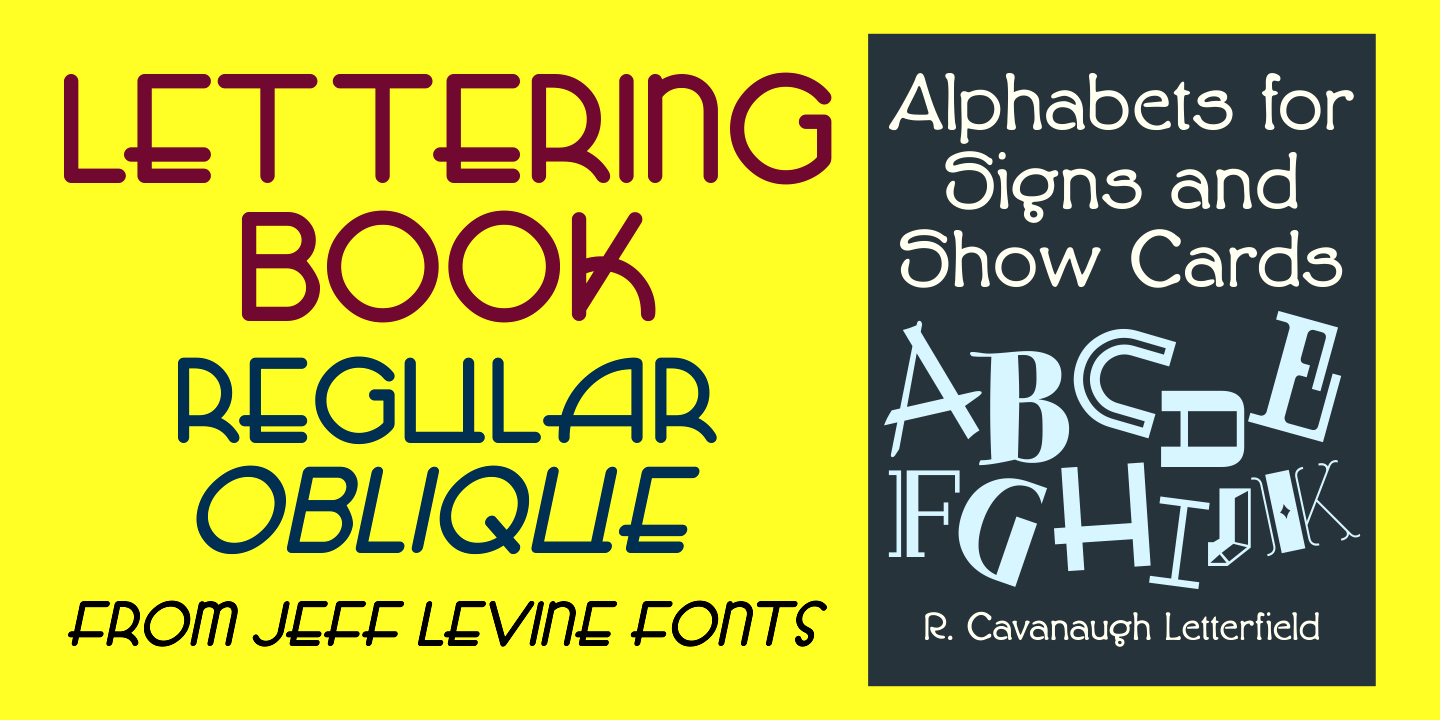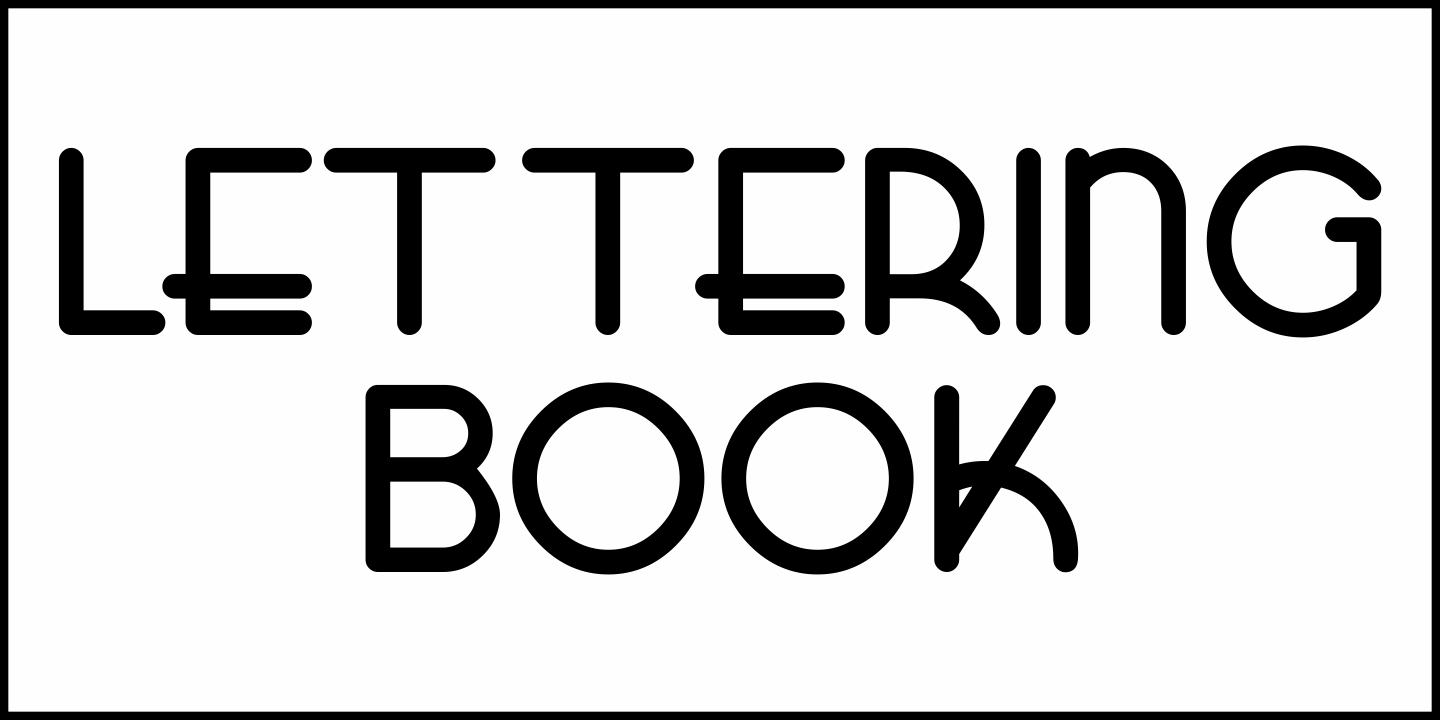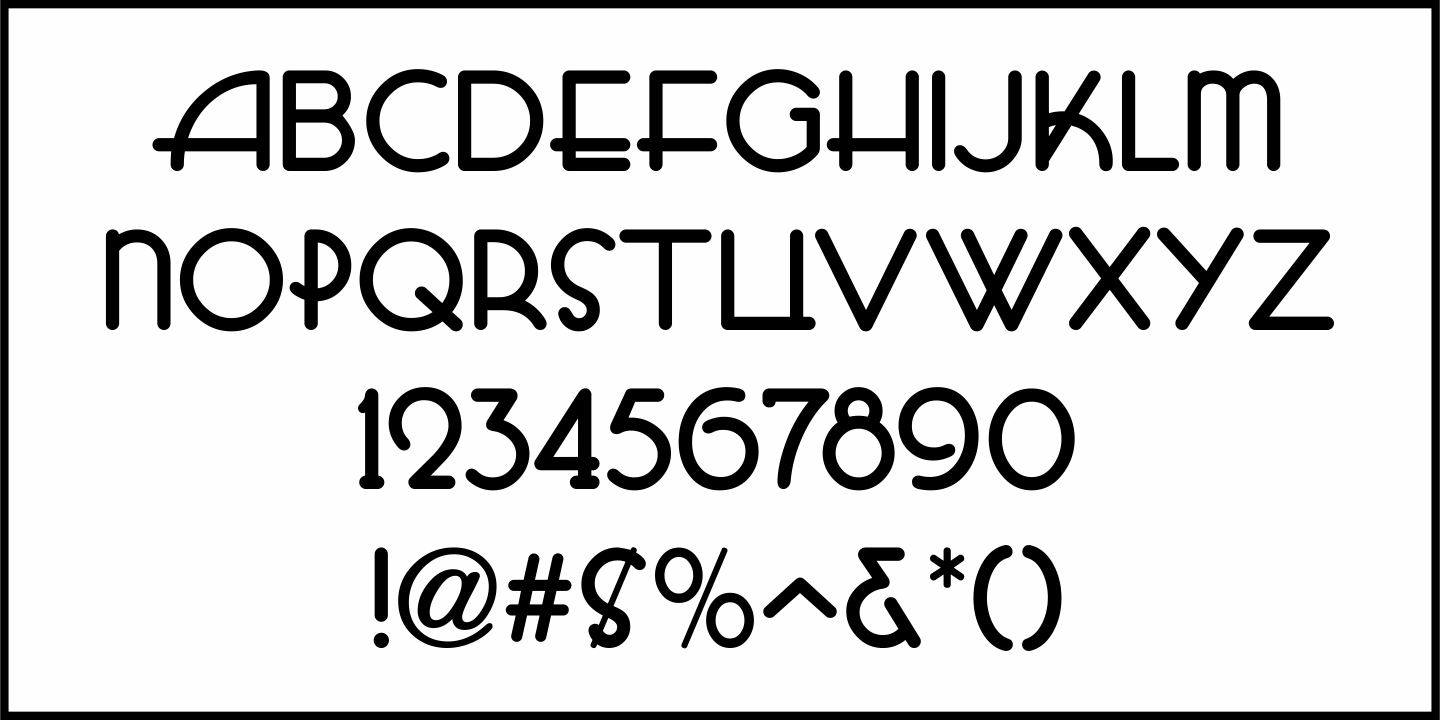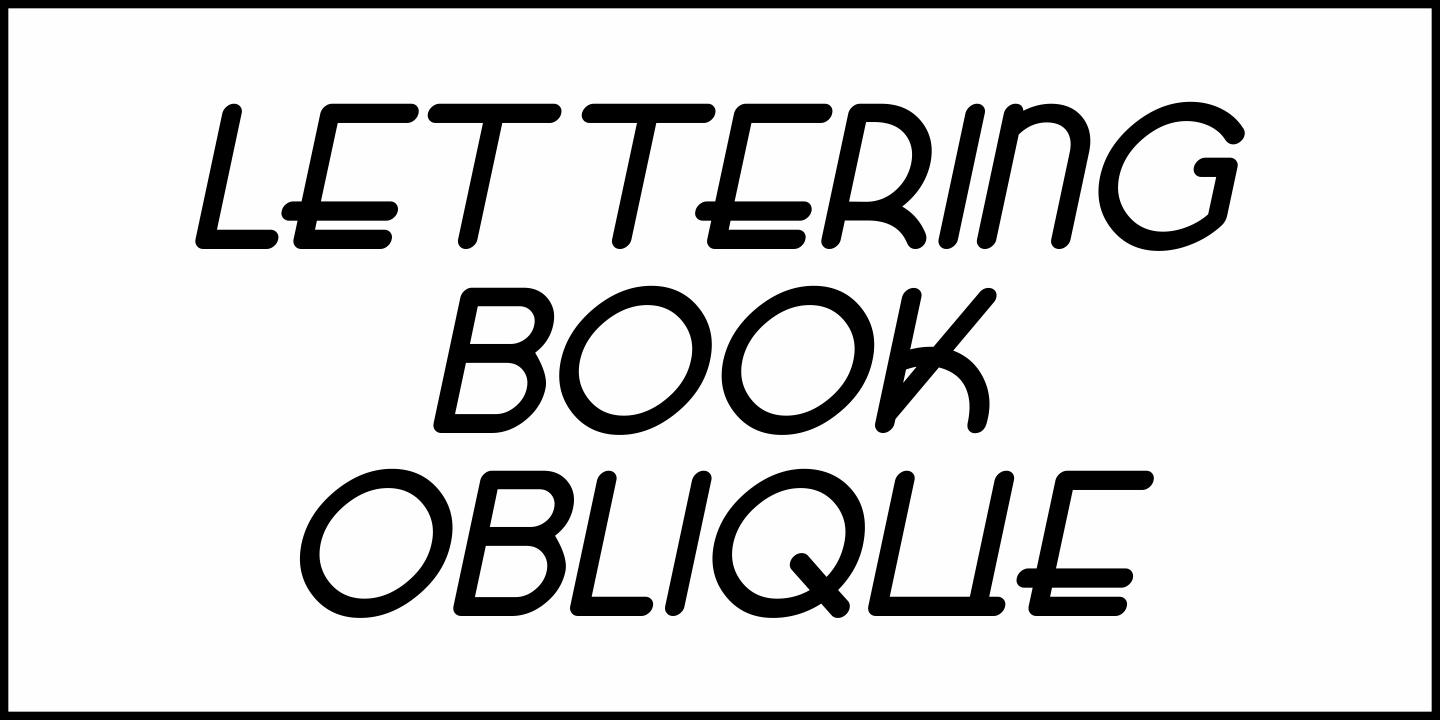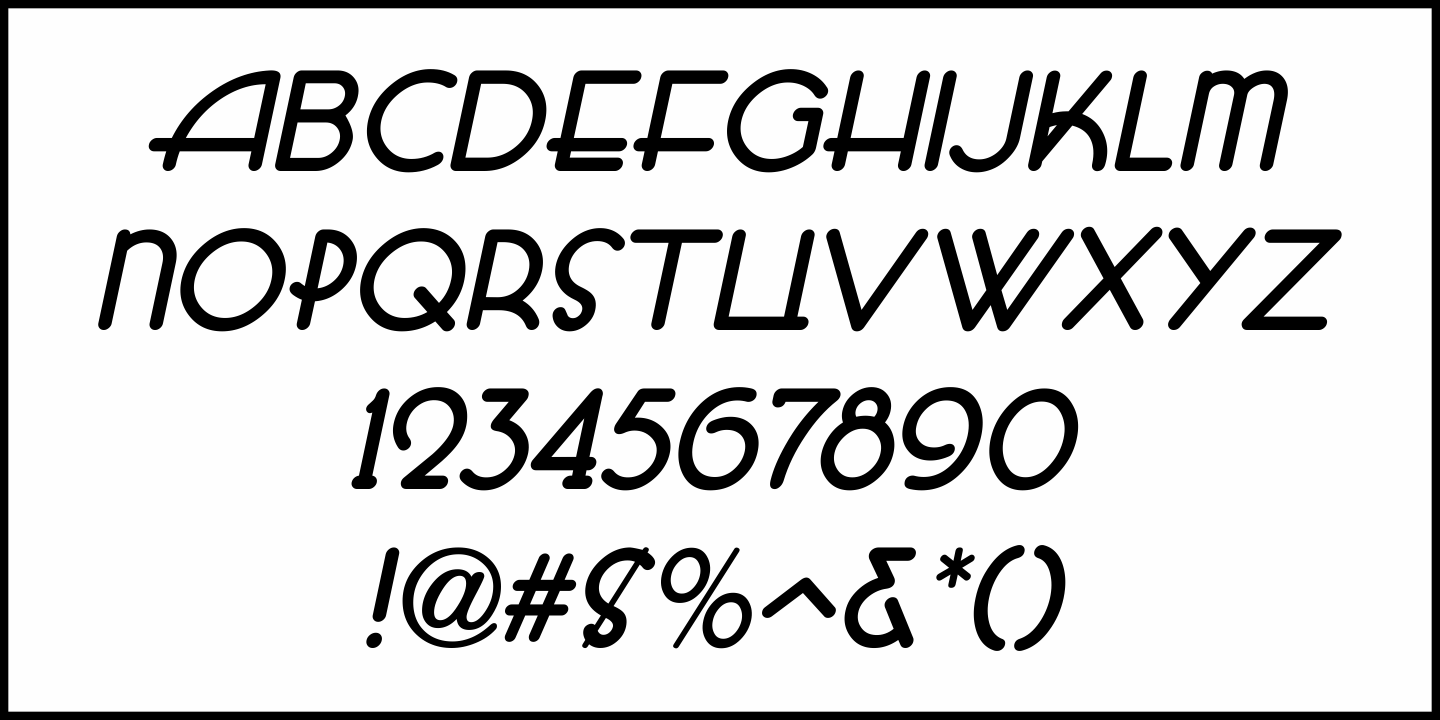
Lettering Book
A circa-1940s textbook for the Esterbrook Drawlet Pens (similar to Speedball pens) offered numerous samples of lettering that could be obtained by following the simple directions and using the book as a guide.
One example was a classic Art Deco design made with a round nib pen, and it has been redrawn digitally as Lettering Book JNL in both regular and oblique versions.
Lettering Book by Jeff Levine Fonts